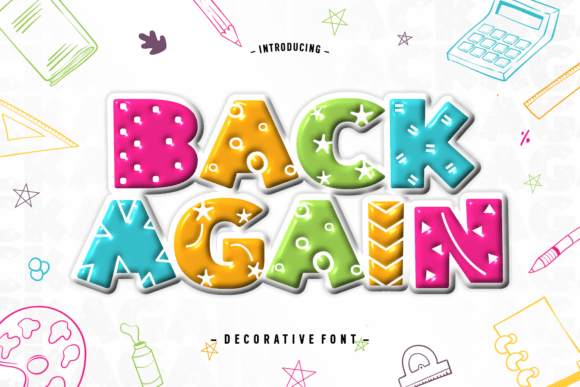
Introduction to Back Again Font
Back Again is a playful decorative display font bursting with color, character, and fun.
Each letter is styled with bold shapes and patterns, making it perfect for projects that need a cheerful and eye-catching look Ideal for children’s books, posters, party invitations, T-shirts, packaging, logos, stickers, and social media graphics, this font adds energy and joy to any design.
Key Features of Back Again Font